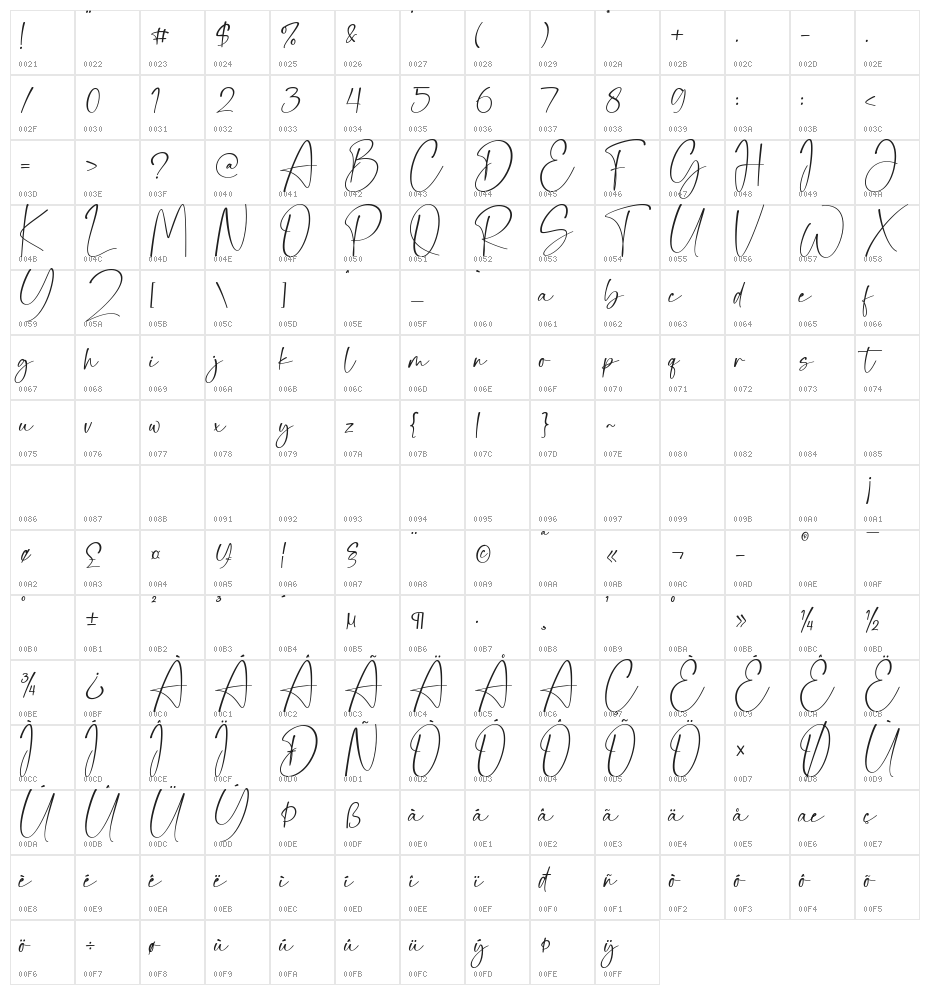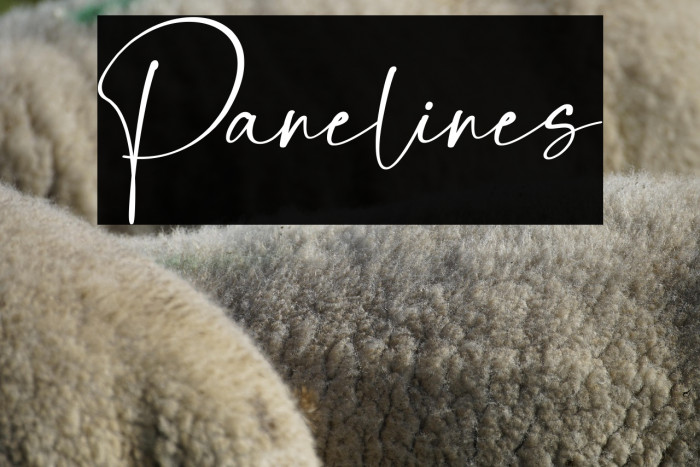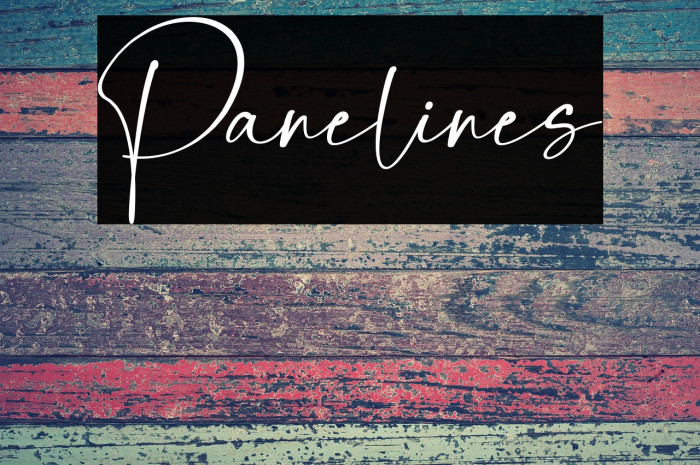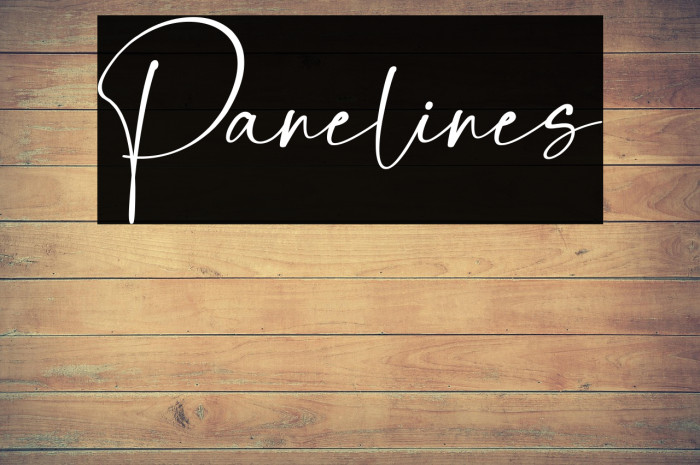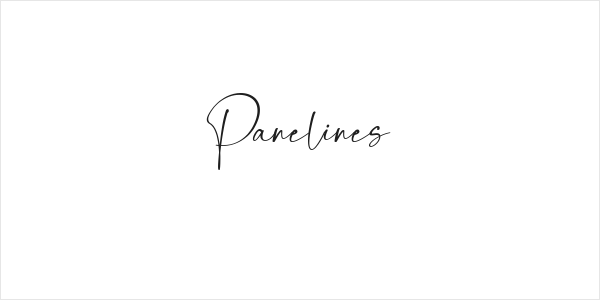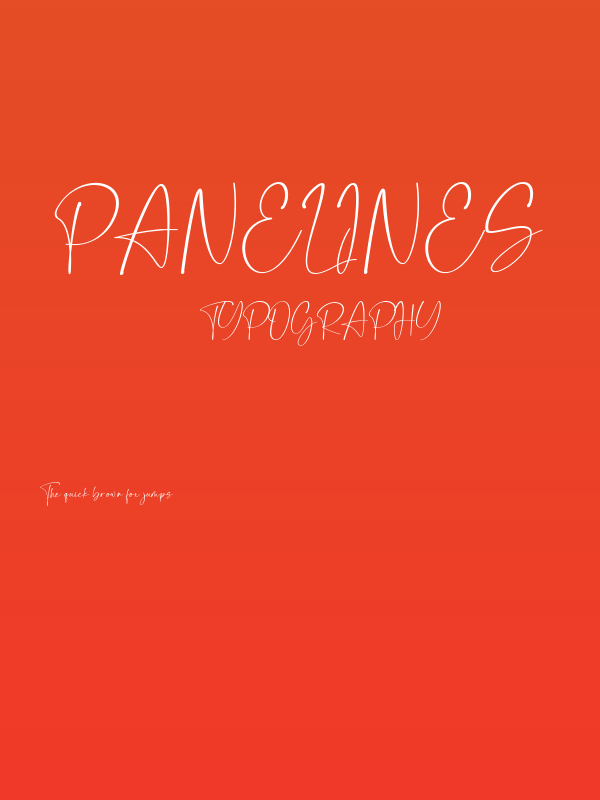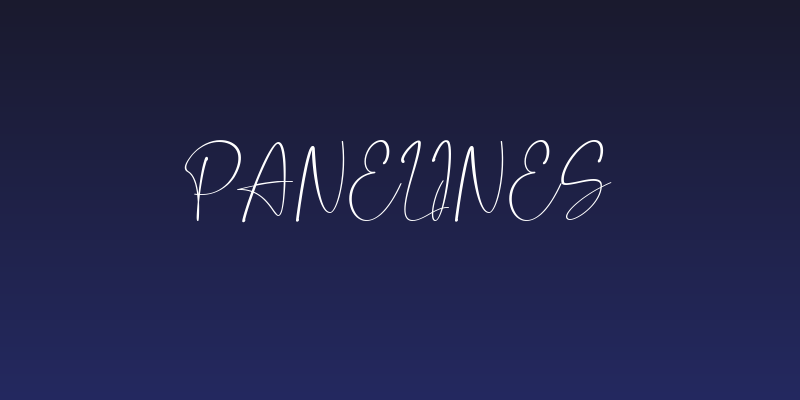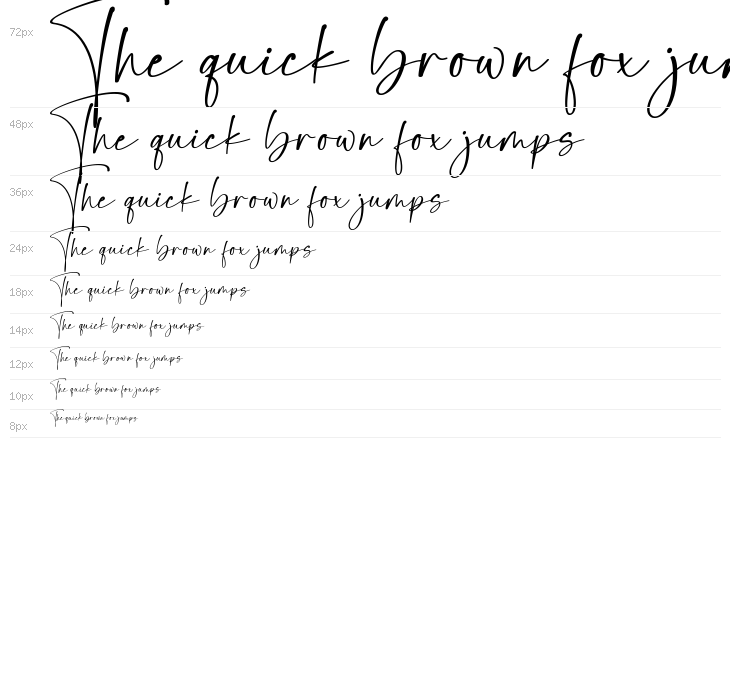
Panelines Font
Panelines Description
This font features a lively and flowing script style, characterized by its elegant and fluid letterforms. The uppercase letters are tall and slender, with a slight slant that adds a sense of movement and grace. The lowercase letters maintain a consistent flow, with smooth curves and loops that enhance its handwritten appeal. The numerals are designed to match the overall aesthetic, with a playful yet sophisticated appearance. Special characters are integrated seamlessly, maintaining the font's cohesive look. This font exudes a sense of creativity and personal touch, making it ideal for projects that require a humanistic and artistic flair.